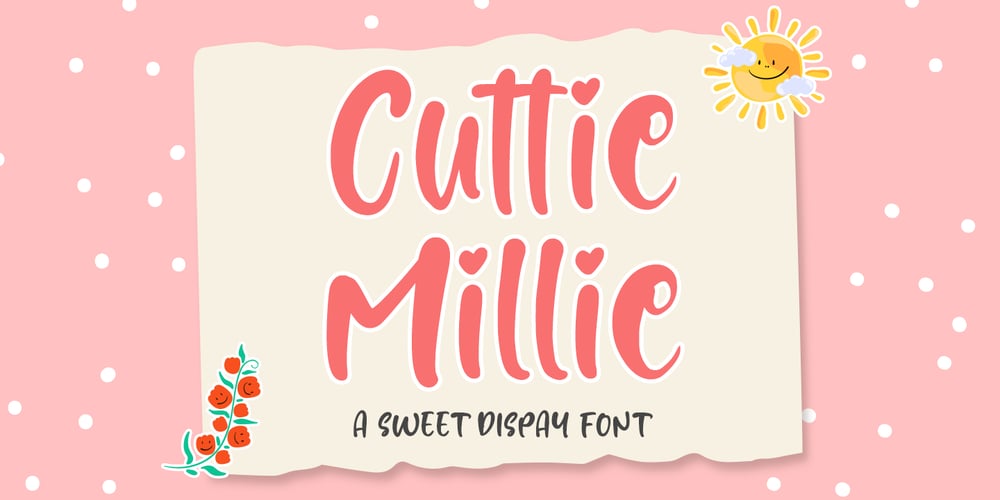
Cutie Millie Font Family was designed by Novia Himatunnisa and published by Nissa Nana. Cutie Millie contains 1 styles and family package options. Cuttie Millie is a cheery, fun, and smart display font. Whether you are using it for cartoon-related designs, children’s games, quotes, titles, brand names, book covers, posters, or just any creation that requires a touch of joy, this font is a great choice.